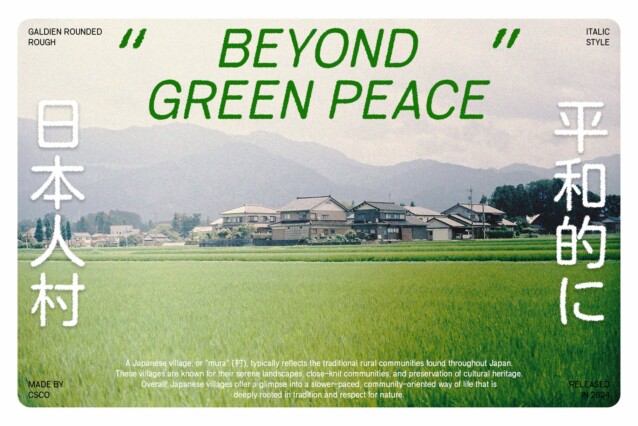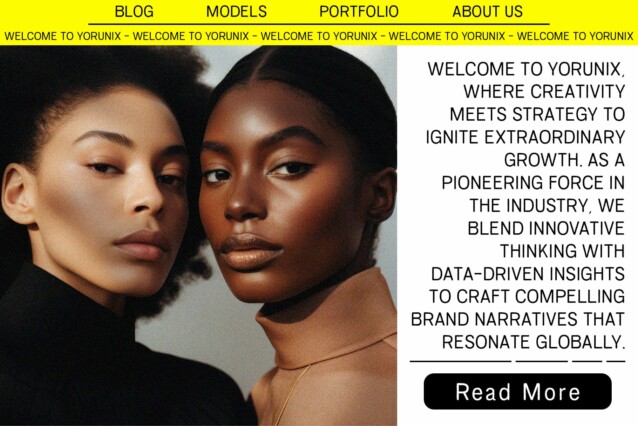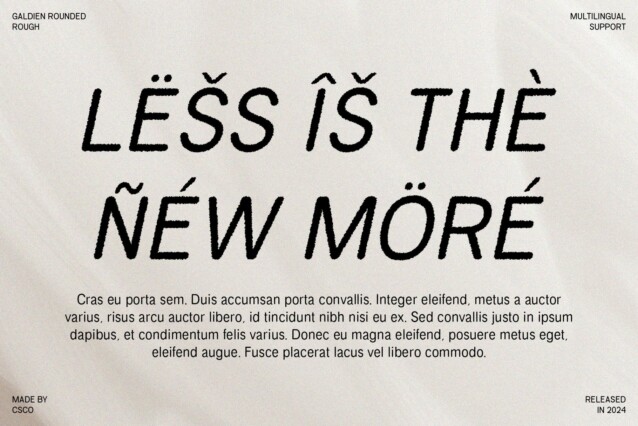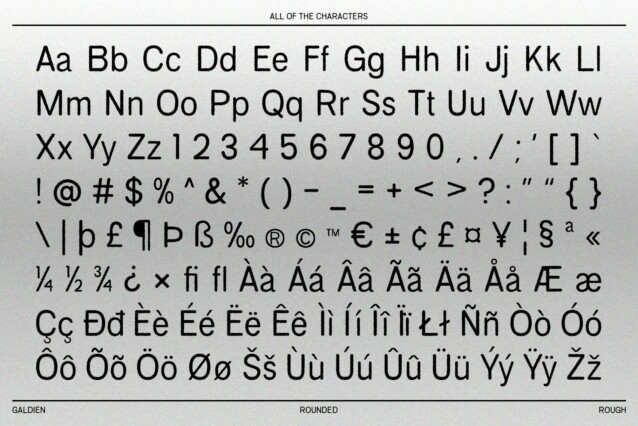
Galdien Rounded Rough Font
Galdien Rounded Rough Font is a modern sans-serif font that combines the sleek, professional look of a grotesque style with a distinctive rough effect. This unique blend creates a font that exudes contemporary sophistication while adding depth and character through its textured appearance.
Clean Lines and Balanced Proportions
The font’s clean lines and balanced proportions provide a sleek and professional look, making it versatile for a wide range of applications. The rough texture introduces a raw, tactile element that enhances visual interest and sets it apart from more traditional sans-serif fonts.